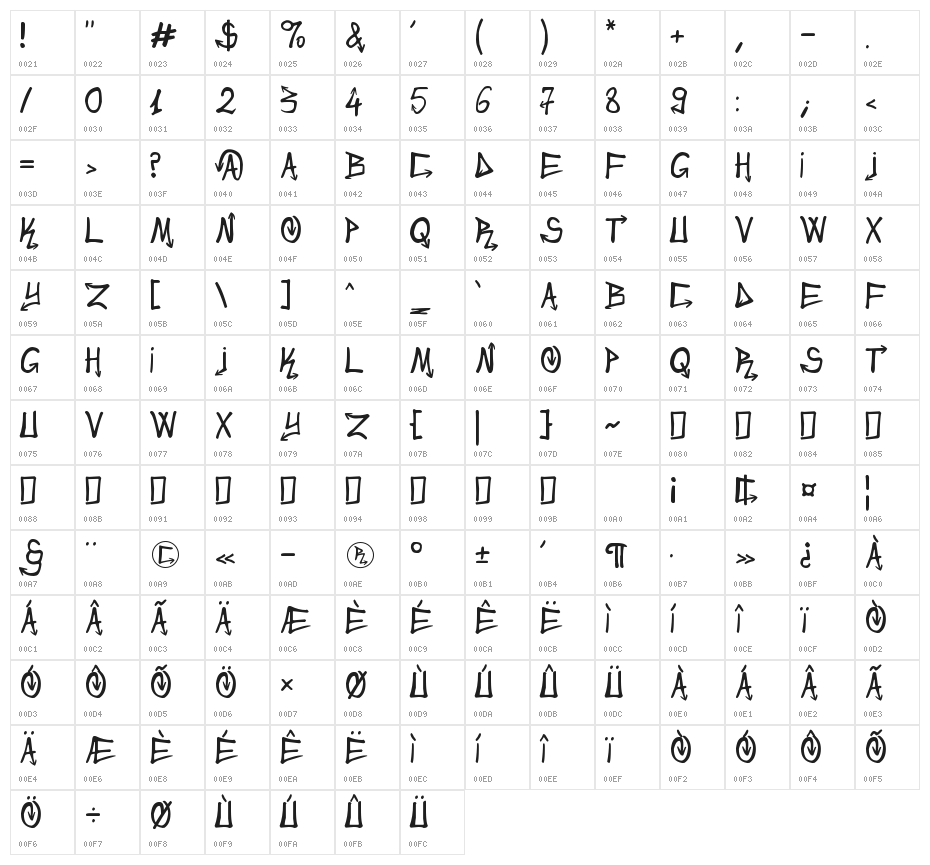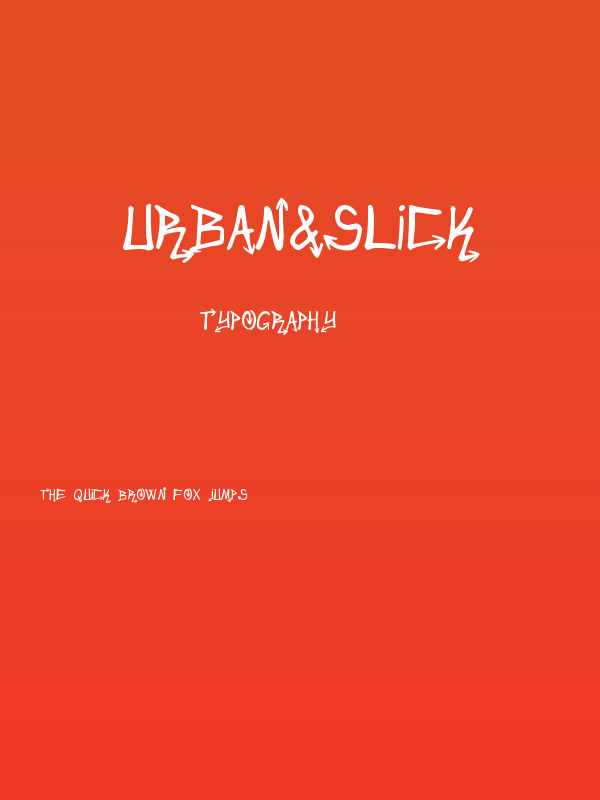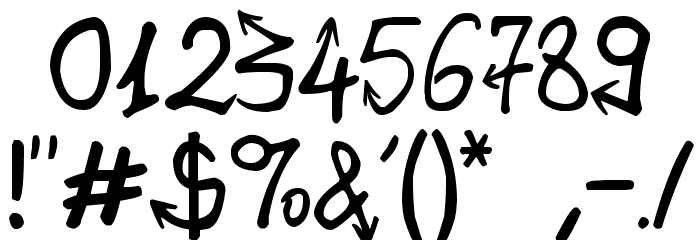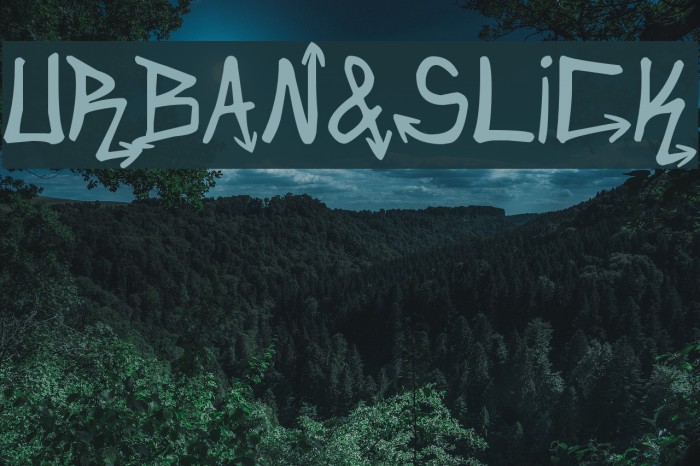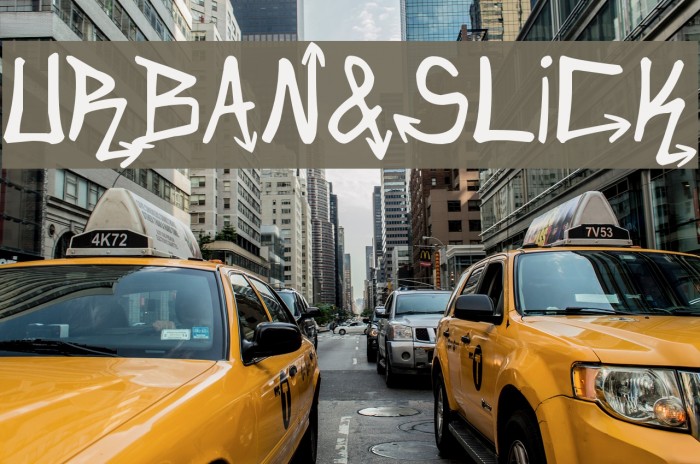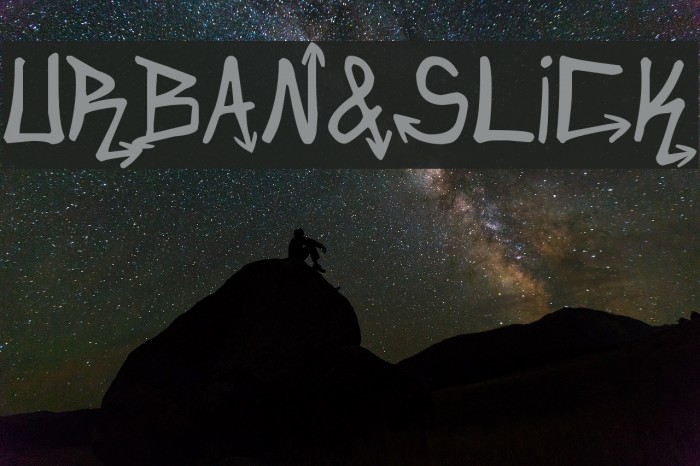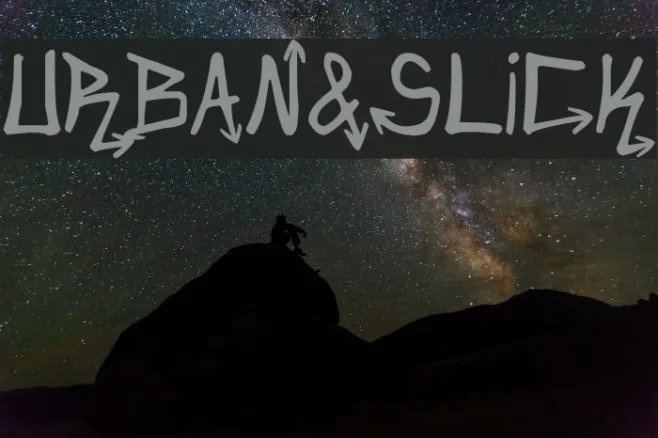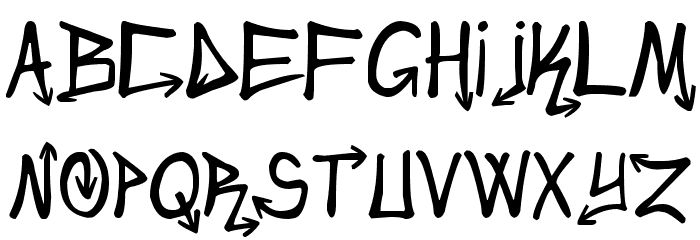
Urban&Slick Font
Urban&Slick Description
This font exudes an urban, edgy vibe with its graffiti-inspired design. The characters are bold and dynamic, featuring sharp angles and playful arrow elements that give a sense of movement and direction. The uppercase and lowercase letters maintain a consistent style, with exaggerated curves and strokes that mimic street art aesthetics. Numbers and special characters follow the same energetic theme, making them stand out with unique flair. This font is perfect for projects that aim to capture a youthful, rebellious spirit, such as streetwear branding, music album covers, or urban event posters.
| Overall Style | Urban, Edgy, Graffiti |
| Use Case | Logos, Posters, Headlines |
| Proposed Projects | Streetwear branding, music album covers, urban event posters, graffiti art projects. |